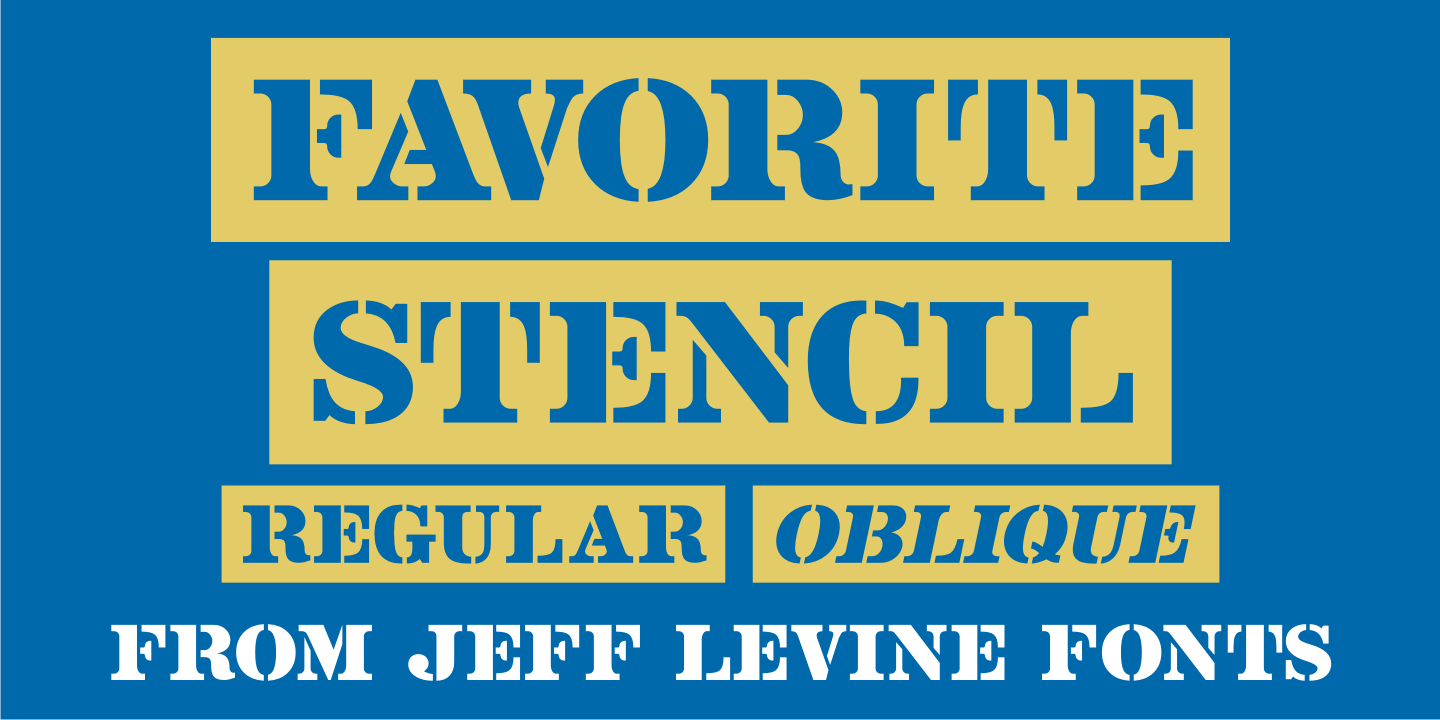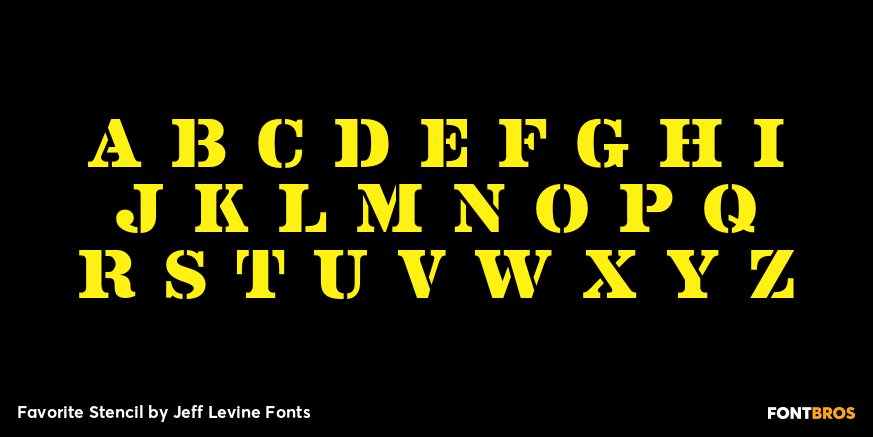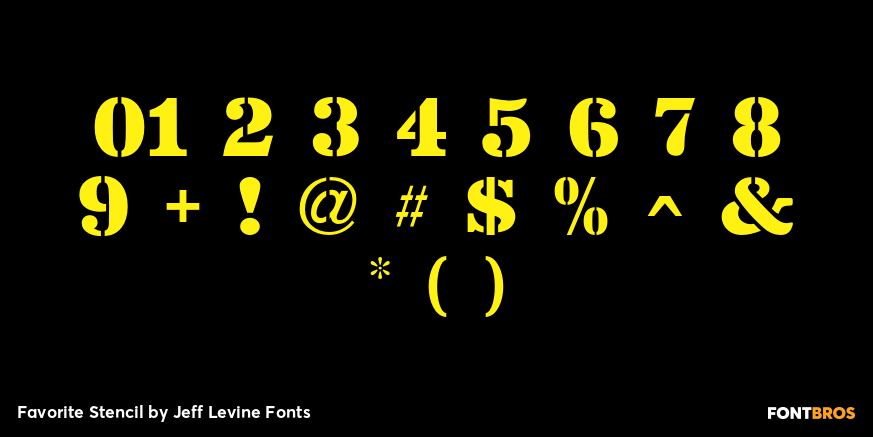
Favorite Stencil
Favorite Stencil JNL is inspired by and modeled after the classic hot metal typeface 'Ludlow Stencil”; a design that enjoyed popularity around the 1950s and is not to be confused with Ludlow's similarly-named 'Stencil” which was released in 1937.
Available in both regular and oblique versions.